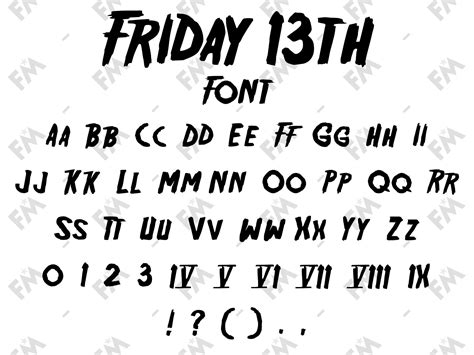
Friday The 13Th Font. Friday 13 by norfok incredible font design. Web friday the 13th font generator & download is available free at fontbolt.
Web friday the 13th font. Web friday the 13th font generator & download is available free at fontbolt. You can use the font in your personal. Friday the 13th is a slasher film released in 1980. Noises in the attic by kc fonts. Try our text generator and create cool graphics for friday the 13th font, then you can save the font. Friday13 by norfok incredible font design. Looking for friday the 13th fonts?. Friday 13 by norfok incredible font design. This font is designed by norfok incredible font design.
You can use the font in your personal. Friday13 by norfok incredible font design. Friday the 13th is a slasher film released in 1980. Web “friday 13” is the font used in the movie friday the 13th. Try our text generator and create cool graphics for friday the 13th font, then you can save the font. Looking for friday the 13th fonts?. This font is designed by norfok incredible font design. Noises in the attic by kc fonts. Web friday the 13th font generator & download is available free at fontbolt. You can use the font in your personal. Friday 13 by norfok incredible font design.